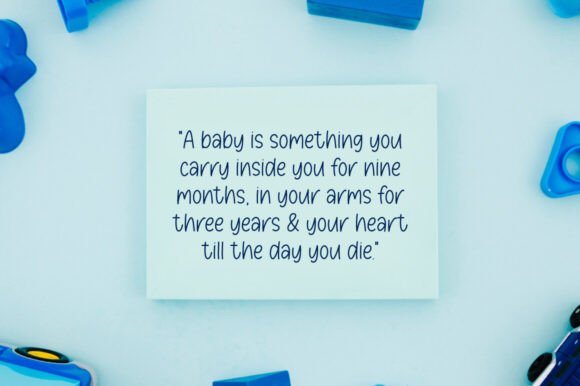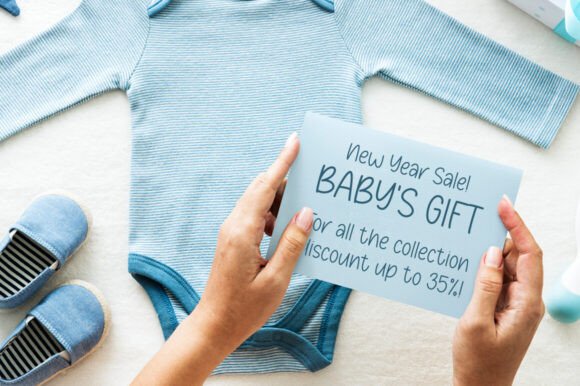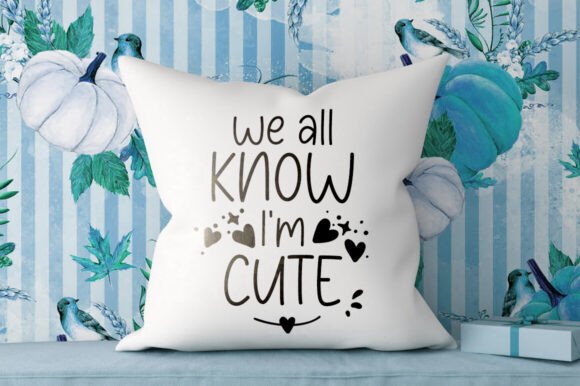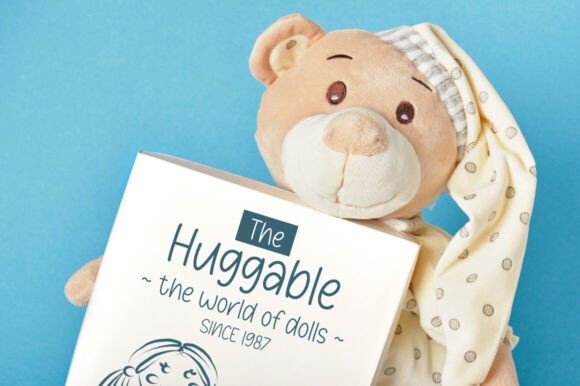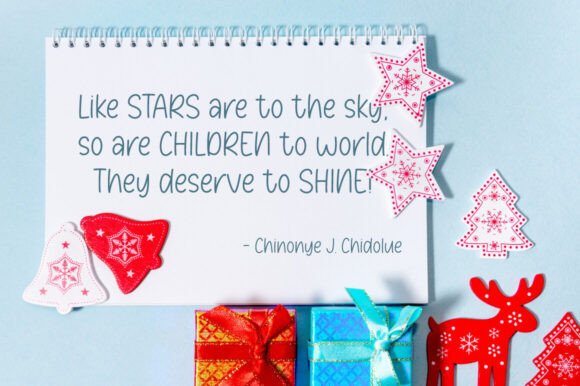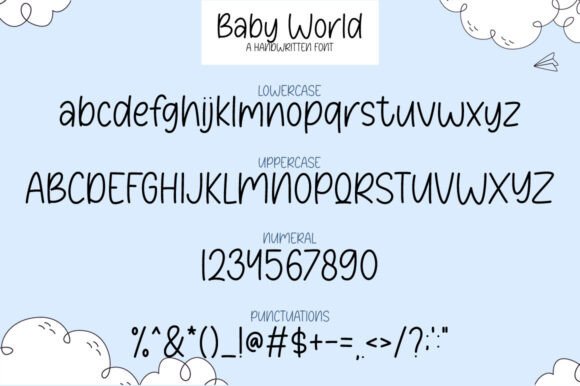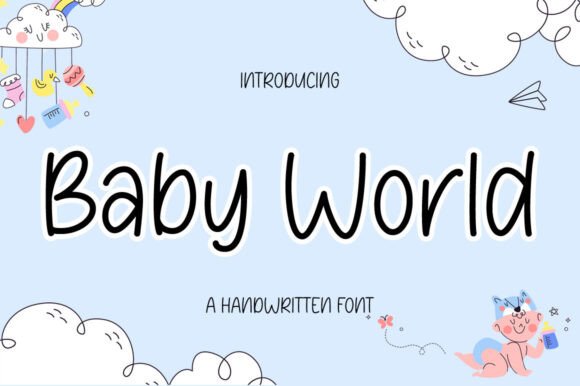
Baby World Font: The Perfect Choice for Elegant Designs
Baby World Font is a stunning script font that has captured the hearts of designers and crafters alike. Its beautiful, well-balanced, and graceful design makes it an ideal choice for fashion branding, editorial designs, and a wide range of creative projects. In this article, we’ll dive into the world of Baby World Font, exploring its features, uses, and benefits.
A Beautifully Crafted Script Font
Baby World Font is defined by its smooth curves, which give it a luxurious and elegant feel. The font’s design is carefully crafted to ensure that it looks great in various contexts, from large headings to small body text. Its well-balanced structure makes it easy to read, while its graceful lines add a touch of sophistication to any design.
Perfect for Fashion Branding
Fashion branding requires a font that exudes elegance, sophistication, and style. Baby World Font fits the bill perfectly. Its luxurious feel makes it an excellent choice for high-end fashion brands, while its versatility ensures that it can be used in a variety of design contexts, from logos and advertisements to packaging and website headers.
Ideal for Editorial Designs
Editorial designs, such as magazines, newspapers, and books, require a font that is both readable and visually appealing. Baby World Font’s smooth curves and well-balanced design make it an excellent choice for editorial designs. Its elegant feel adds a touch of sophistication to any publication, making it perfect for articles, headlines, and titles.
Key Features of Baby World Font
- Smooth Curves: Baby World Font’s smooth curves give it a luxurious and elegant feel.
- Well-Balanced Design: The font’s well-balanced structure ensures that it looks great in various contexts.
- Graceful Lines: Baby World Font’s graceful lines add a touch of sophistication to any design.
- Versatile: The font can be used in a variety of design contexts, from fashion branding to editorial designs.
Benefits of Using Baby World Font
Using Baby World Font in your designs offers a range of benefits, including:
- Unique and Memorable: Baby World Font’s elegant design makes it stand out from other fonts, ensuring that your designs are unique and memorable.
- Professional Look: The font’s luxurious feel gives your designs a professional look that is perfect for high-end brands and publications.
- Easy to Read: Baby World Font’s well-balanced design ensures that it is easy to read, even in small sizes.
How to Use Baby World Font
Using Baby World Font in your designs is easy. Here are a few tips to get you started:
- Pair it with Other Fonts: Baby World Font pairs well with other fonts, such as sans-serif fonts, to create a unique and visually appealing design.
- Use it for Headings: The font’s elegant design makes it perfect for headings, titles, and large text.
- Experiment with Colors: Baby World Font looks great in a range of colors, from bold and bright to soft and pastel.
Baby World Font is a stunning script font that is perfect for designers and crafters looking to add a touch of elegance to their designs. Its smooth curves, well-balanced design, and graceful lines make it an excellent choice for fashion branding, editorial designs, and a wide range of creative projects. With its versatility, unique design, and professional look, Baby World Font is a must-have font for any designer or crafter.